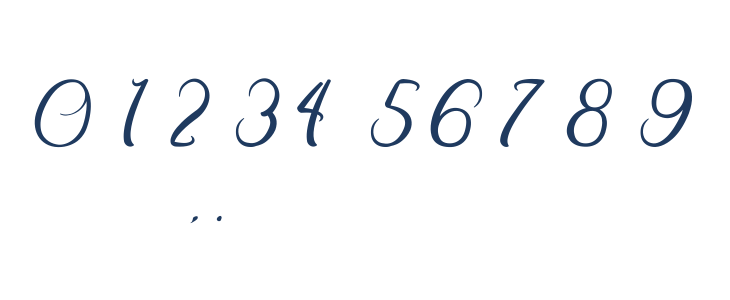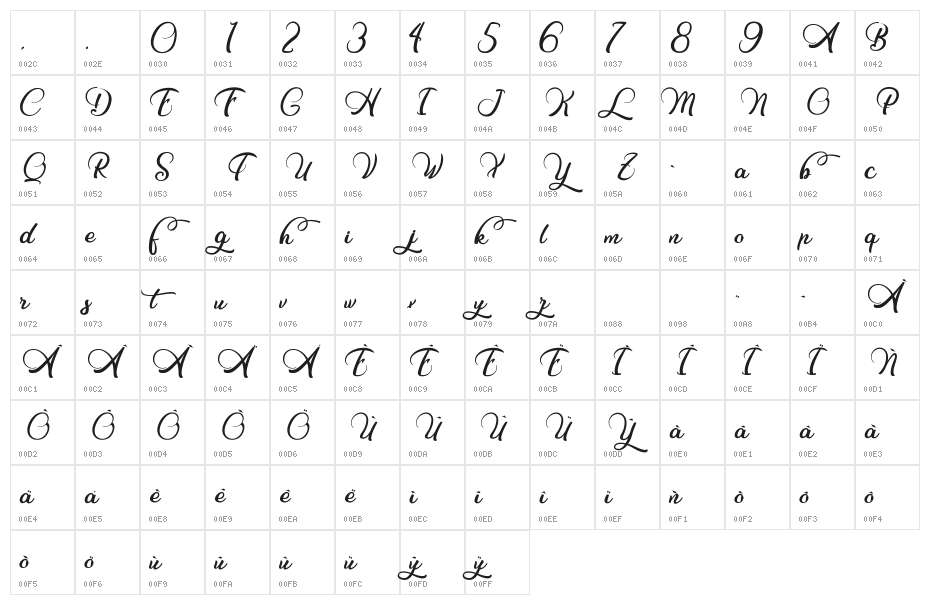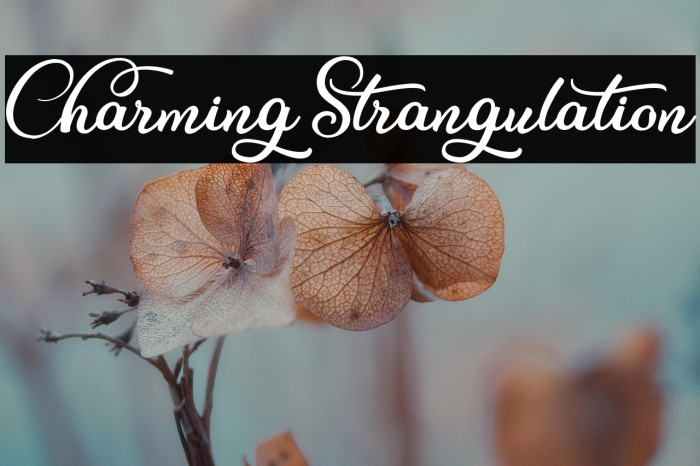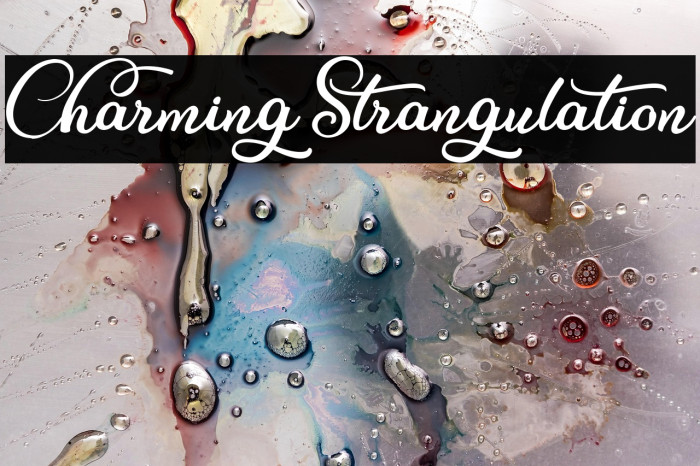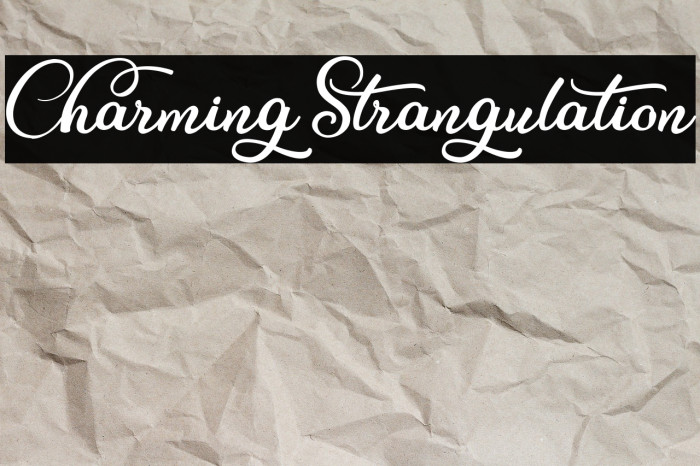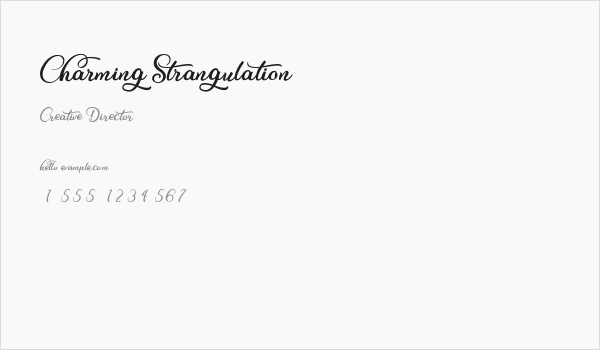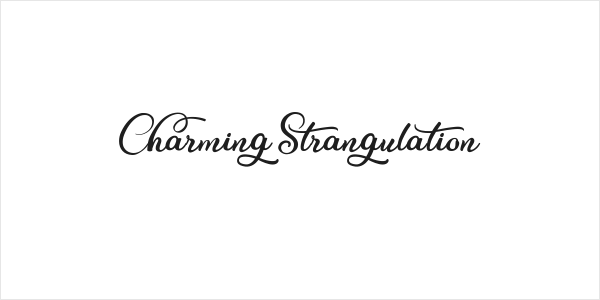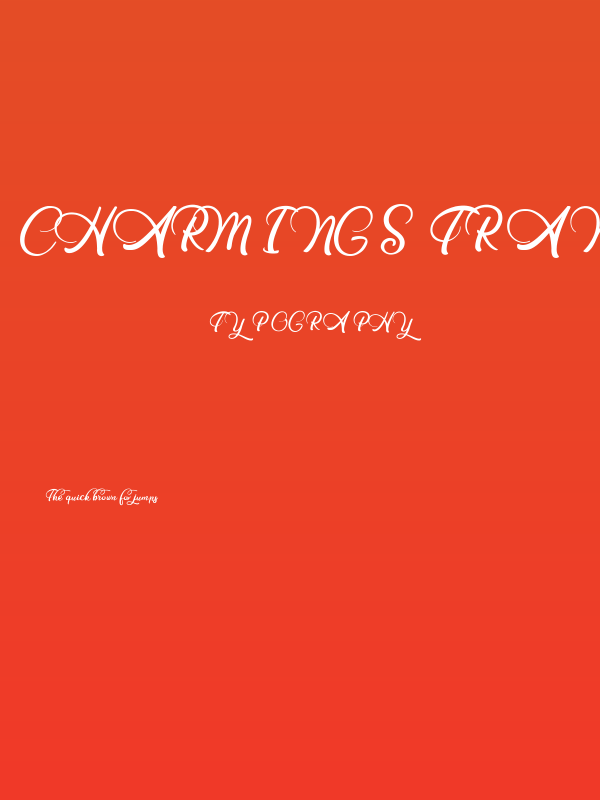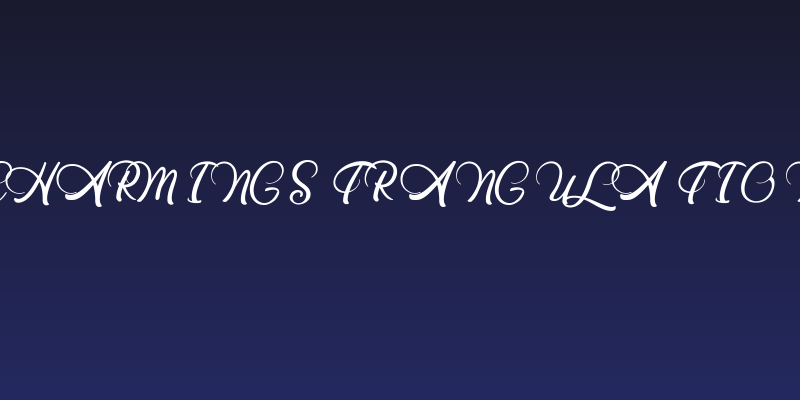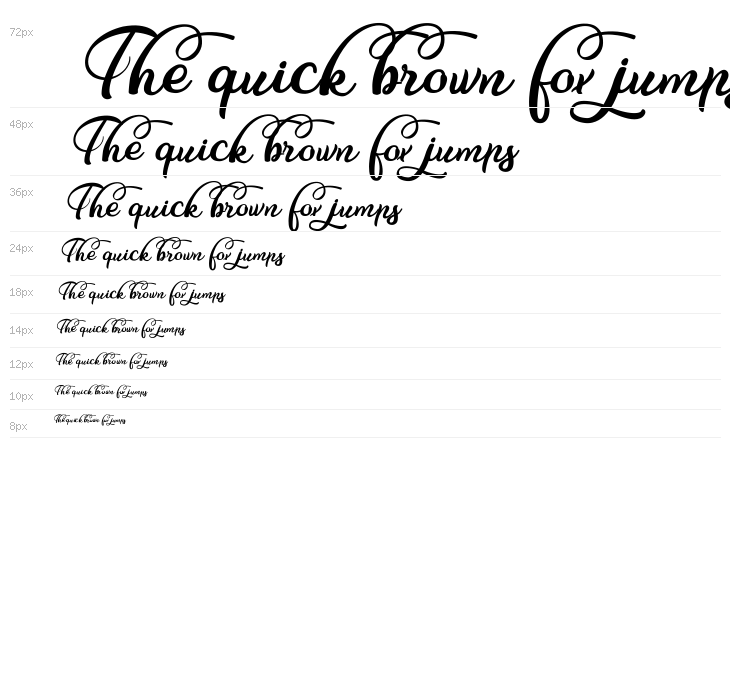
CharmingStrangulation Font
| Stile generale | Elegant, Sophisticated |
| Caso d'uso | Logos, Invitations, Branding |
| Progetti proposti | Ideal for wedding invitations, luxury branding, elegant product packaging, and formal event materials. |